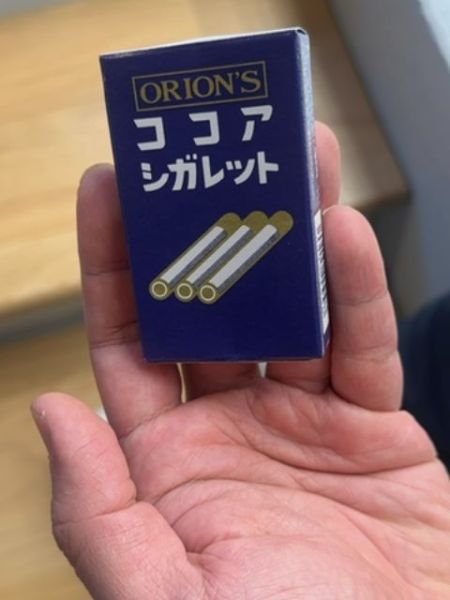
Orion's Cocoa Cigarettes
These are candy sticks designed to resemble cigarettes, primarily targeted towards children for novelty and play.
The typography uses a bold sans-serif font, maintaining high readability and a playful appearance that is suitable for children. The English script is framed within a gold rectangle, emphasizing tradition, while the Japanese text is large and centered, attracting attention with its contrast against the blue background.
The packaging is designed to mimic a cigarette box with a deep blue color dominating the cover. The imagery of three candy sticks on the front suggests the product inside, while the product name is prominently displayed in both English and Japanese.
- The product aims to mimic the appearance of cigarettes while being a harmless candy.
- It has nostalgia value for adults who may have enjoyed these as children.
- The product is part of a larger trend of novelty candies in Japan.